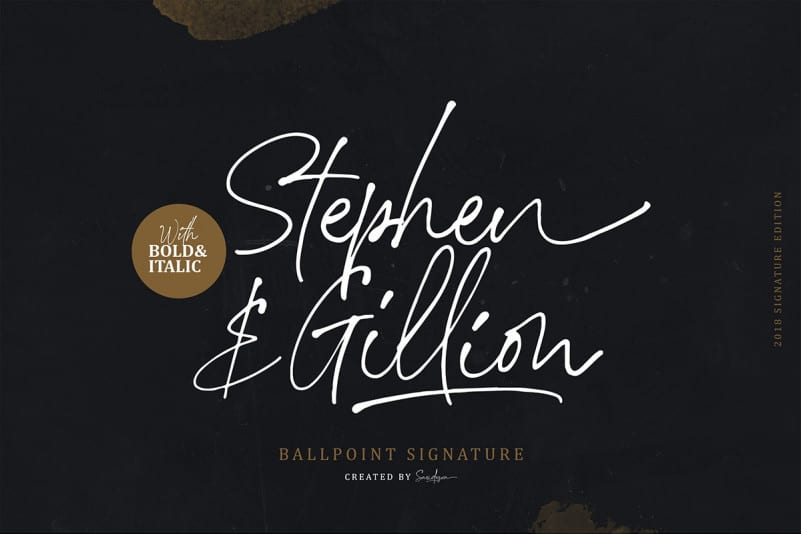
Stephen Gillion Font
Stephen Gillion Script Font with a handmade Signature style, decorative characters and a dancing baseline! It’s designed and shared by Saridezra. Stephen & Gillion is a signature font that you can use to make a logo for branding, beautiful fashion design, suitable for wedding invitation, or handwritten quote. Come with heart-shaped connector! Also already PUA Encoded.